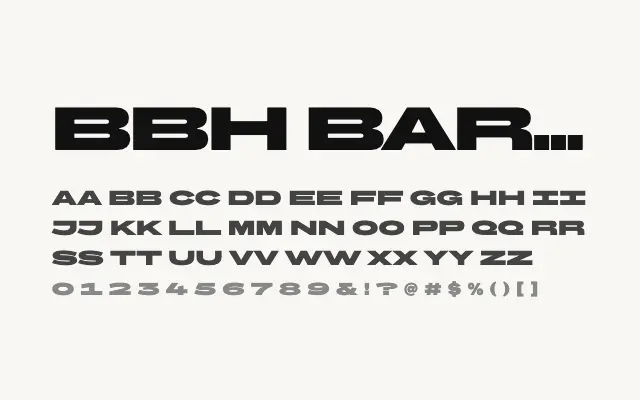
BBH Bartle
A trim geometric sans from the BBH creative family, built for confident branding and headline use.
BBH Bartle brings a restrained geometric sensibility to display and headline settings, with letterforms that feel purposeful rather than decorative. Its neutrality makes it versatile across brand identities that want a modern, unfussy tone. With only a single weight available, it is best deployed at larger sizes where its proportions can be appreciated.
BBH Bartle is a clean geometric sans with minimal contrast and simple, constructed letterforms. It reads as a contemporary, neutral display face with branding applications in mind.